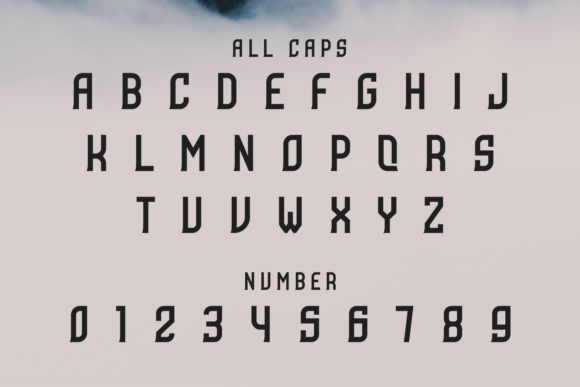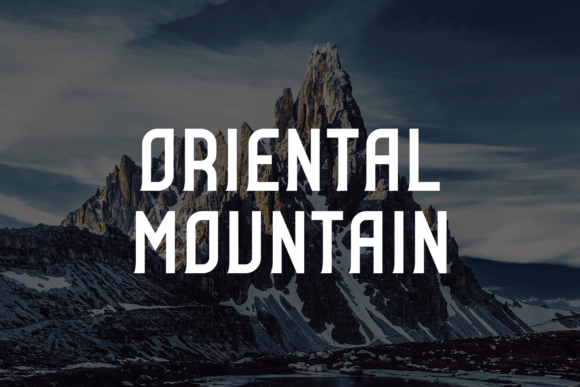
Bodica Font: Elevate Your Designs with a Cool and Unique Display Font
Are you tired of using the same old fonts in your designs? Look no further than Bodica, a cool and unique display font that’s sure to take your creations to the next level. With its neat craftsmanship and high level of detail, Bodica is the perfect addition to any font library. In this article, we’ll dive into the features and benefits of Bodica, and explore how it can enhance your designs.
What is Bodica Font?
Bodica is a display font that’s designed to make a statement. Its unique and cool design makes it perfect for a wide range of applications, from branding and advertising to packaging and digital media. The font is carefully crafted with attention to detail, ensuring that every letter and character is precise and visually appealing.
Key Features of Bodica Font
- Unique Design: Bodica has a one-of-a-kind design that’s sure to grab attention. Its distinctive style sets it apart from other fonts, making it perfect for designers who want to create something truly unique.
- Highly Detailed: The font is meticulously crafted with a high level of detail, ensuring that every character is crisp and clear.
- Neatly Crafted: Bodica’s design is clean and well-organized, making it easy to read and understand.
- Versatile: Bodica can be used for a wide range of applications, from headings and titles to logos and branding.
Benefits of Using Bodica Font
So why should you choose Bodica for your designs? Here are just a few benefits of using this amazing font:
- Adds Visual Interest: Bodica’s unique design adds visual interest to any creation, making it perfect for designers who want to grab attention.
- Enhances Branding: With its distinctive style, Bodica can help to create a strong brand identity that’s sure to stand out.
- Increases Readability: Despite its unique design, Bodica is highly readable, making it perfect for use in a wide range of applications.
- Versatile: Bodica can be used for both digital and print applications, making it a versatile addition to any font library.
How to Use Bodica Font
Using Bodica in your designs is easy. Here are a few tips to get you started:
- Headings and Titles: Use Bodica to create eye-catching headings and titles that grab attention.
- Logos and Branding: Use Bodica to create a unique and memorable logo that’s sure to stand out.
- Packaging: Use Bodica to add visual interest to packaging and make your products stand out on store shelves.
- Digital Media: Use Bodica to create engaging and interactive digital media, such as social media graphics and website headers.
In conclusion, Bodica is a cool and unique display font that’s sure to elevate your designs. With its neat craftsmanship, high level of detail, and versatile design, Bodica is the perfect addition to any font library. Whether you’re a designer, craft, or simply someone who appreciates great design, Bodica is a must-have font that’s sure to inspire creativity and enhance your creations.